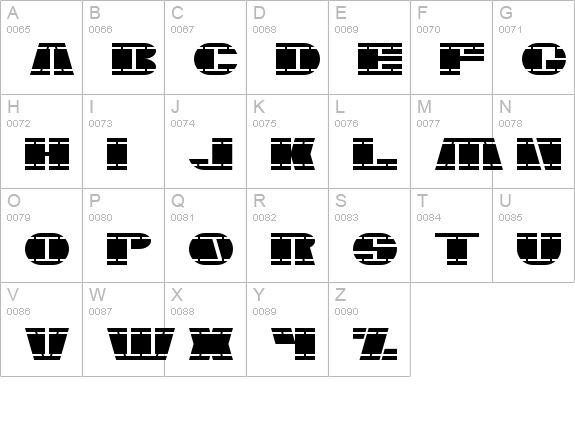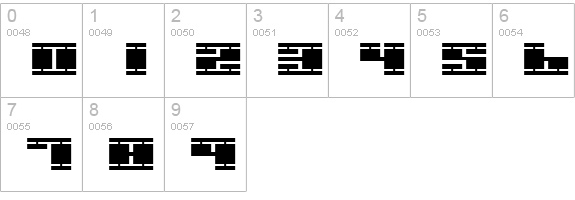
Nasser Font Details
Introducing the elegant and modern Nasser font, a versatile typeface that exudes sophistication and style. With its sleek lines and contemporary design, Nasser is perfect for a wide range of projects, from branding to editorial design. This versatile font is sure to make your work stand out and leave a lasting impression. What's even better is that Nasser font is available for free download at FontsMarket.com. Yes, you read that right - this high-quality font can be yours at no cost, making it a fantastic choice for budget-conscious designers and creatives. Don't miss out on the opportunity to elevate your projects with the stunning Nasser font. Download it today and take your designs to the next level!